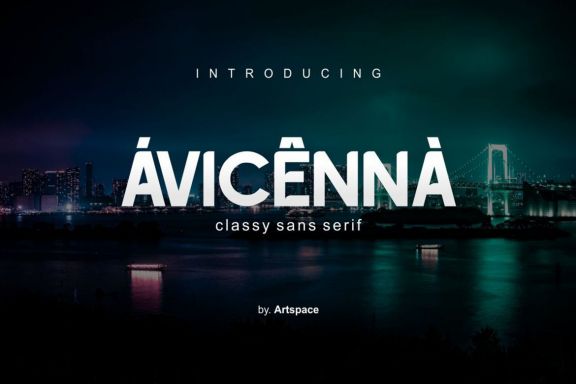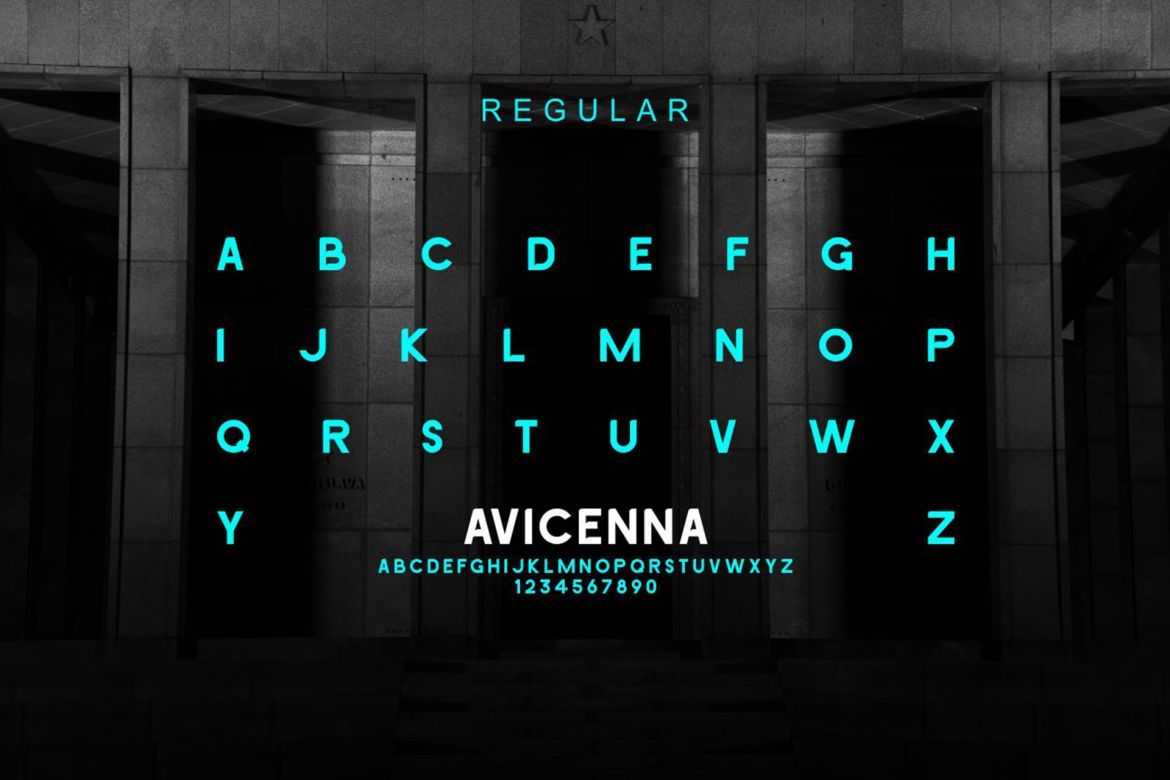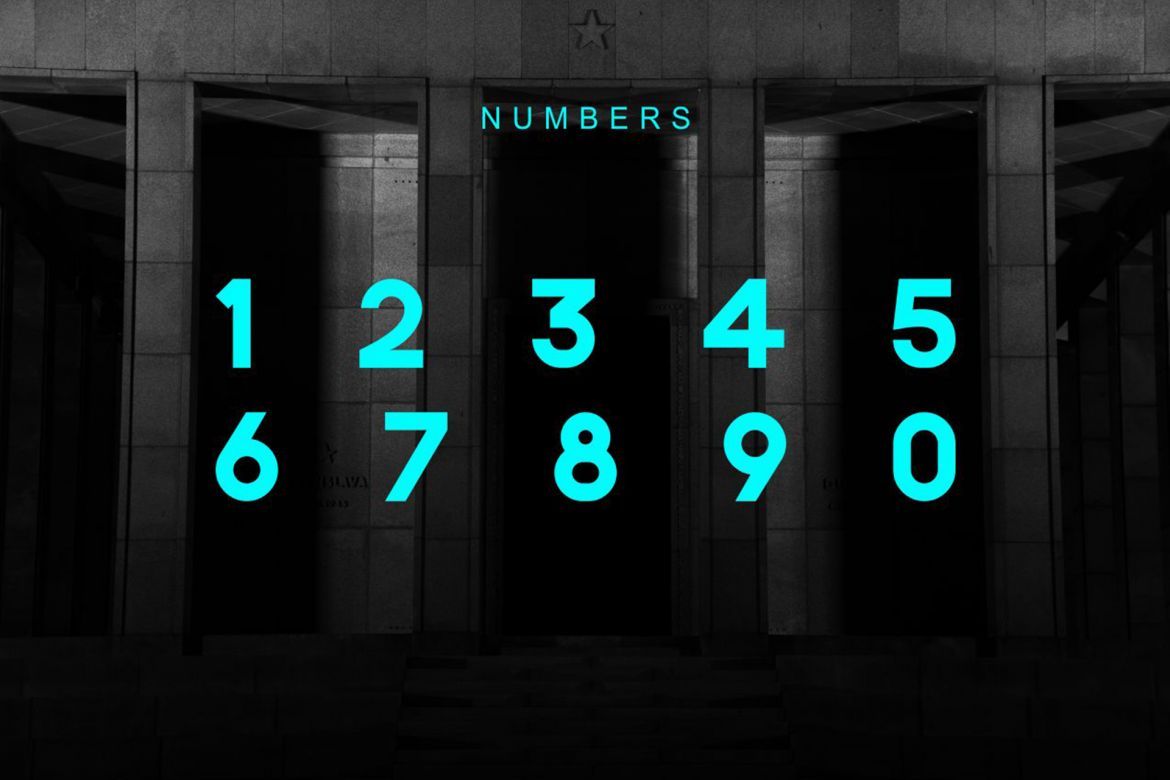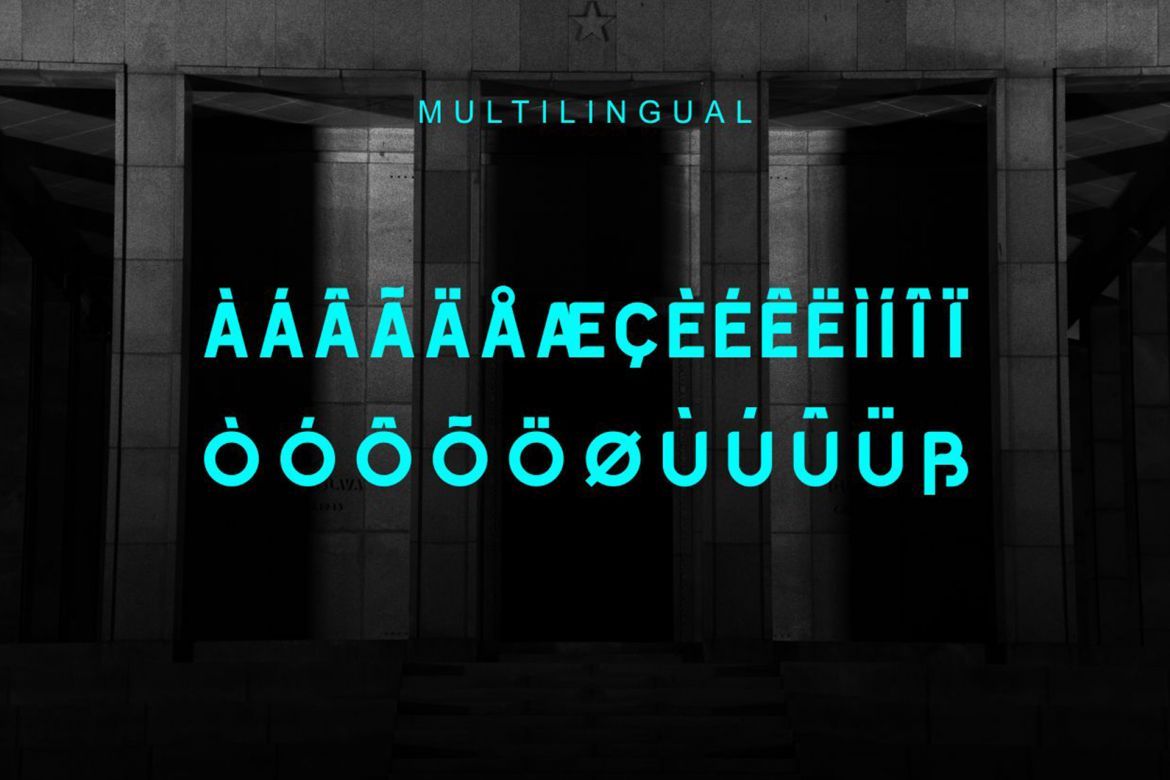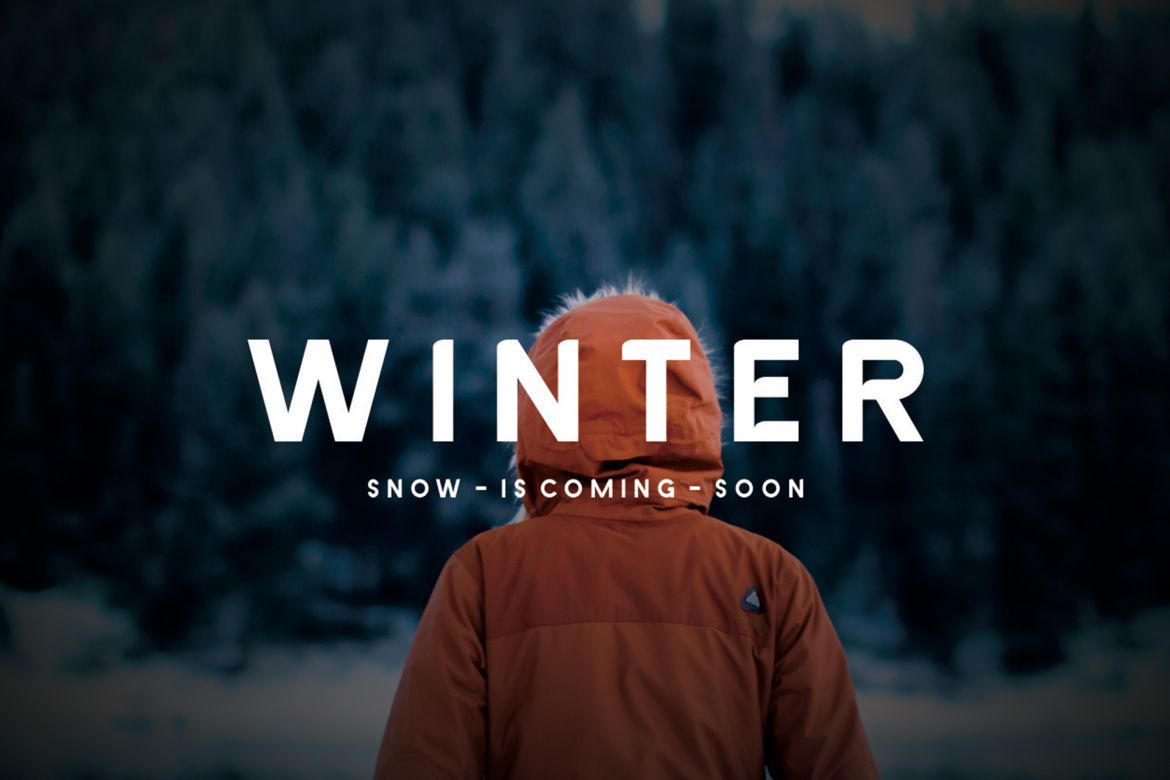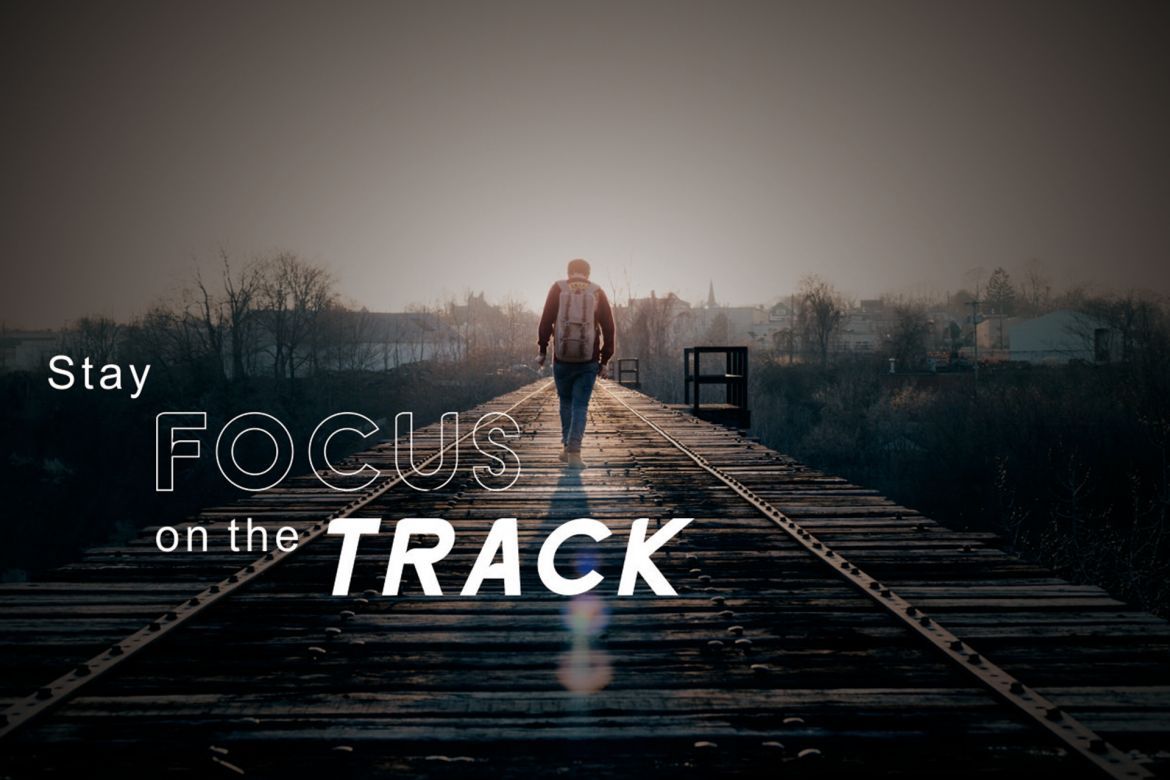
AVICENA Font
The Avicenna is a striking sans serif. It was inspired by old, classic fonts that were elegantly designed. It comes in 3 different weights which you can use to create unique designs, every time you use it!